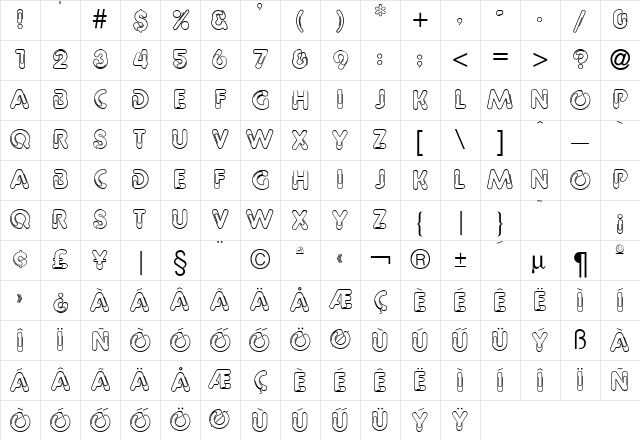
Pipeline-HU Normal
Design Context for Pipeline-HU
Pipeline-HU is a composed and adaptable typeface that performs quietly and consistently across a wide range of design contexts.